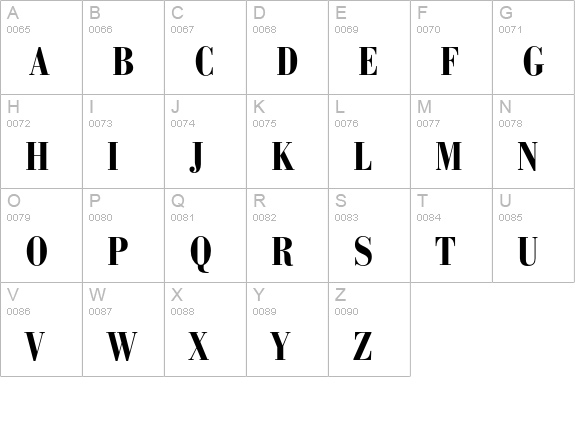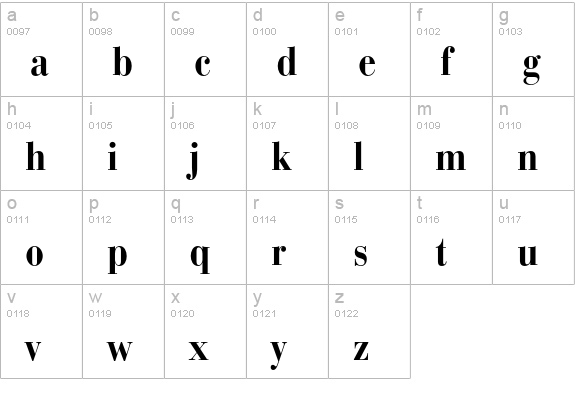
12 Bauer Bodoni** Bold Condensed 24033 Font Details
12 Bauer Bodoni** Bold Condensed 24033 is a strong, high-contrast, condensed-width variant in the 12 typeface family \xE2\x80\x94 well suited to headlines, attention-grabbing titles, and strong calls-to-action.
The 12 Bauer Bodoni Bold Condensed 24033 font is a striking and elegant typeface that exudes sophistication and modernity. With its bold and condensed design, this font commands attention and makes a statement in any design project. The clean lines and sharp edges of the characters give a sense of professionalism and refinement. What sets this font apart is its versatility - it can be used for a wide range of design projects, from branding and advertising to editorial and packaging. The bold weight of the font ensures that it stands out on any medium, making it perfect for headlines and titles. Best of all, this font is available for free download at FontsMarket.com. Whether you're a designer looking to add a touch of elegance to your projects or a business owner wanting to elevate your branding, the 12 Bauer Bodoni Bold Condensed 24033 font is a must-have in your font collection. Download it today and unleash your creativity with this stunning typeface.